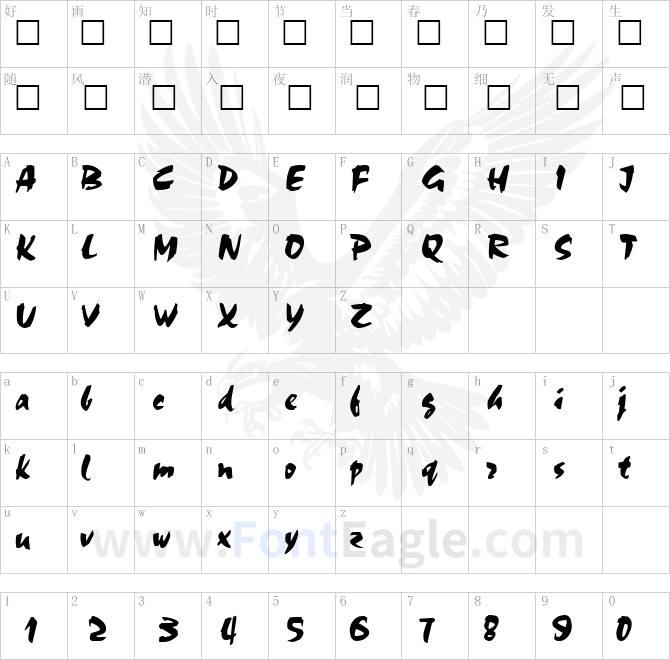
PT-Saigon is a great font, widely used in graphic design, single-page menu design, poster design and other fields, and is deeply loved by designers.PT-Saigon download.